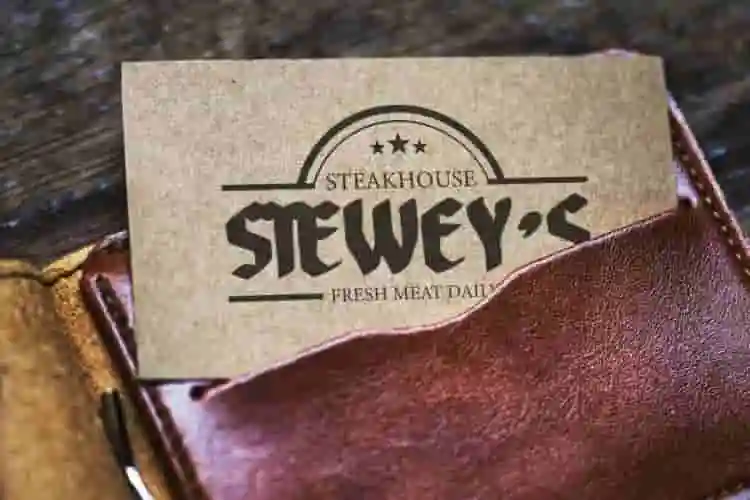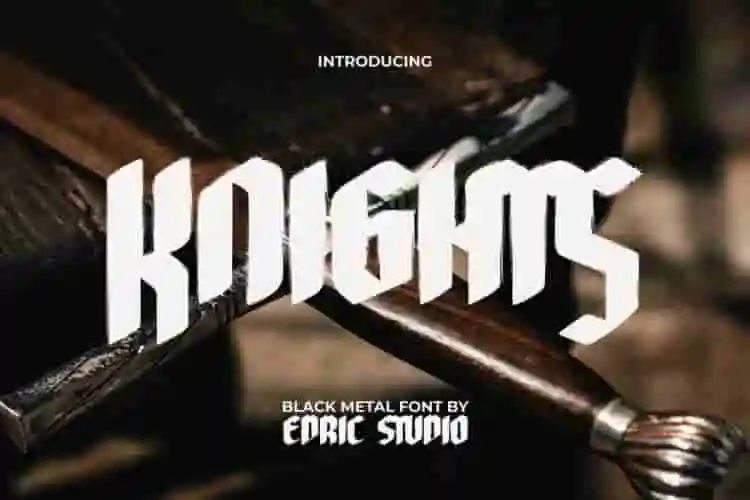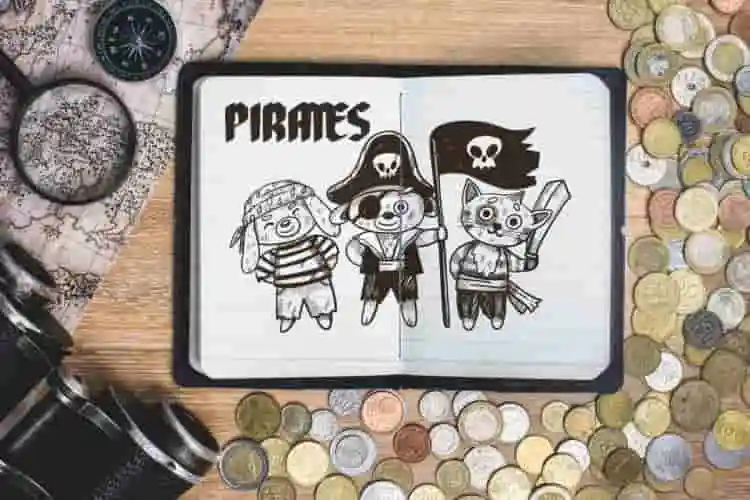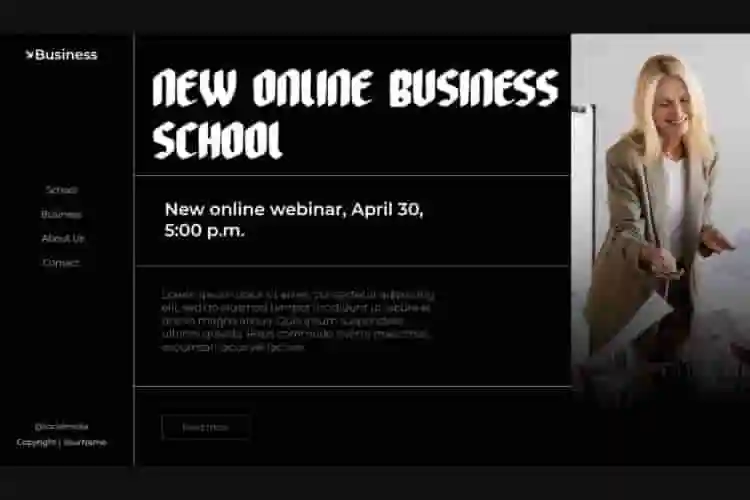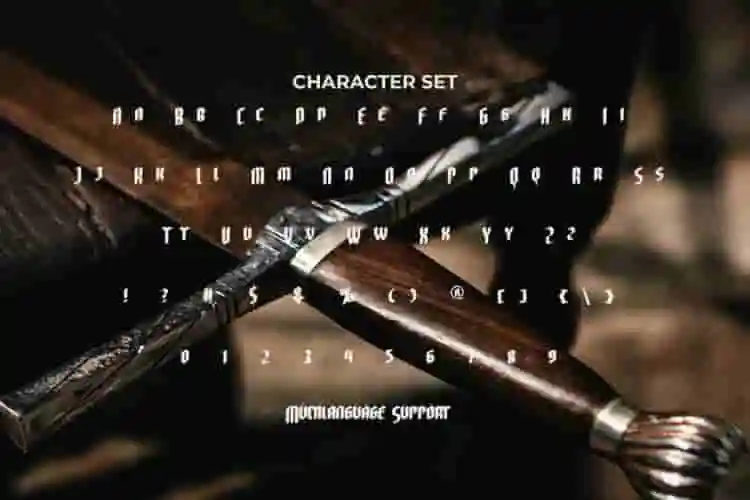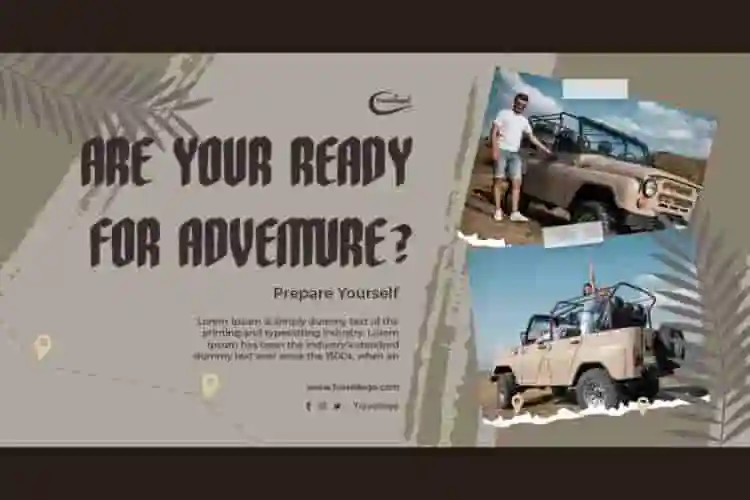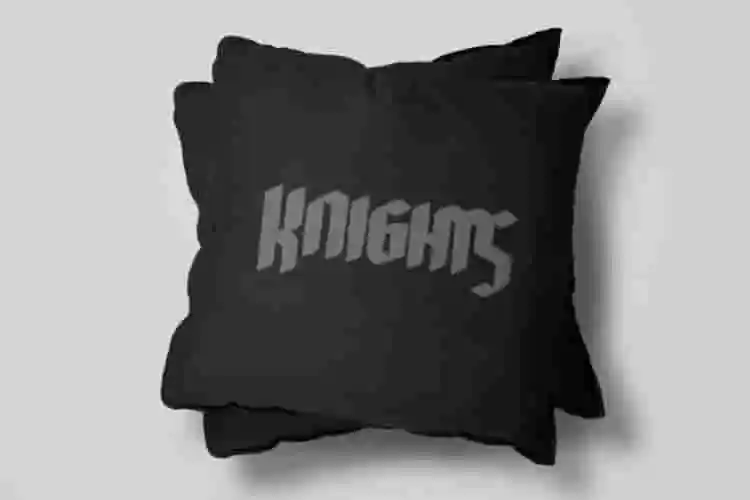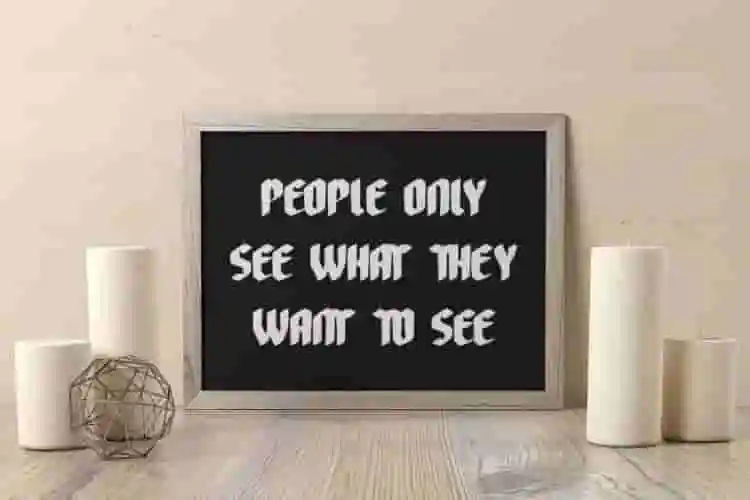
Knights Font is a classic bold font with a rough black metal theme based on modern gothic blackletter. You can see and feel carefully each letter in the font that makes it different. It will be very suitable for use in branding identity, card, cover designs, flyer, headings, labels, logos, posters, printing, screen print, signage, stationery, sticker, template, text art on background, quotes, websites, etc.
Knights Font includes a complete set of ALL CAPS for upper and lower case letters with different sizes from each other as a differentiator, Numbers, Punctuation, Symbols. This font is an original handmade font that exudes boldness and strength. Designed with a dark and medieval concept, this font creates a striking and distinctive look. Use it for film, graphic design, movies, music festival, and more.